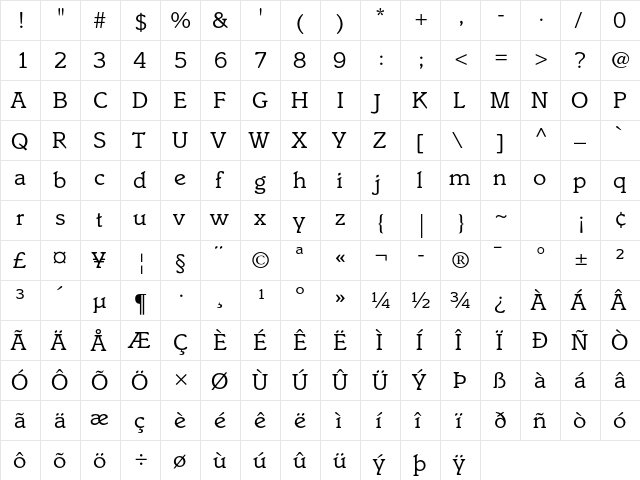
Italia Std Book
| Designer | Colin Brignall |
Design Context for Italia Std Typeface
Italia Std is a composed and adaptable typeface that performs quietly and consistently across a wide range of design contexts.
Originally released in 1991, this typeface is available in OpenType (OTF) format.